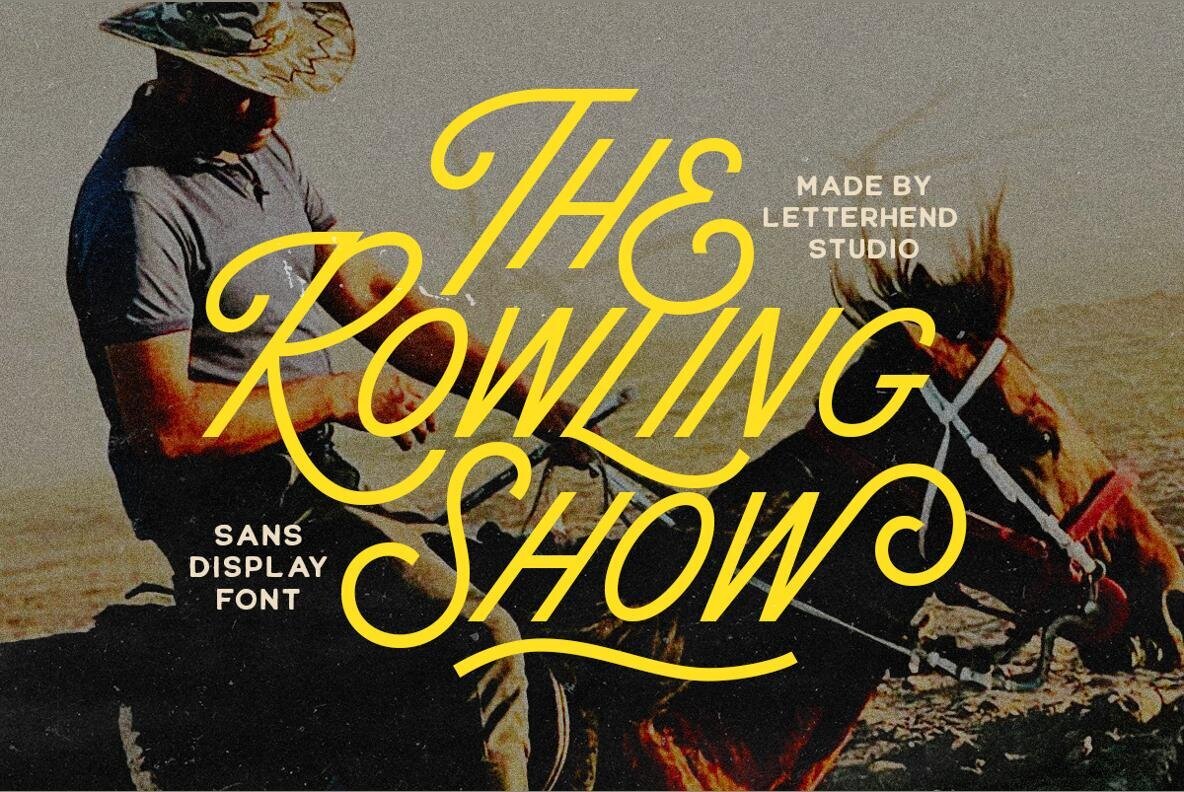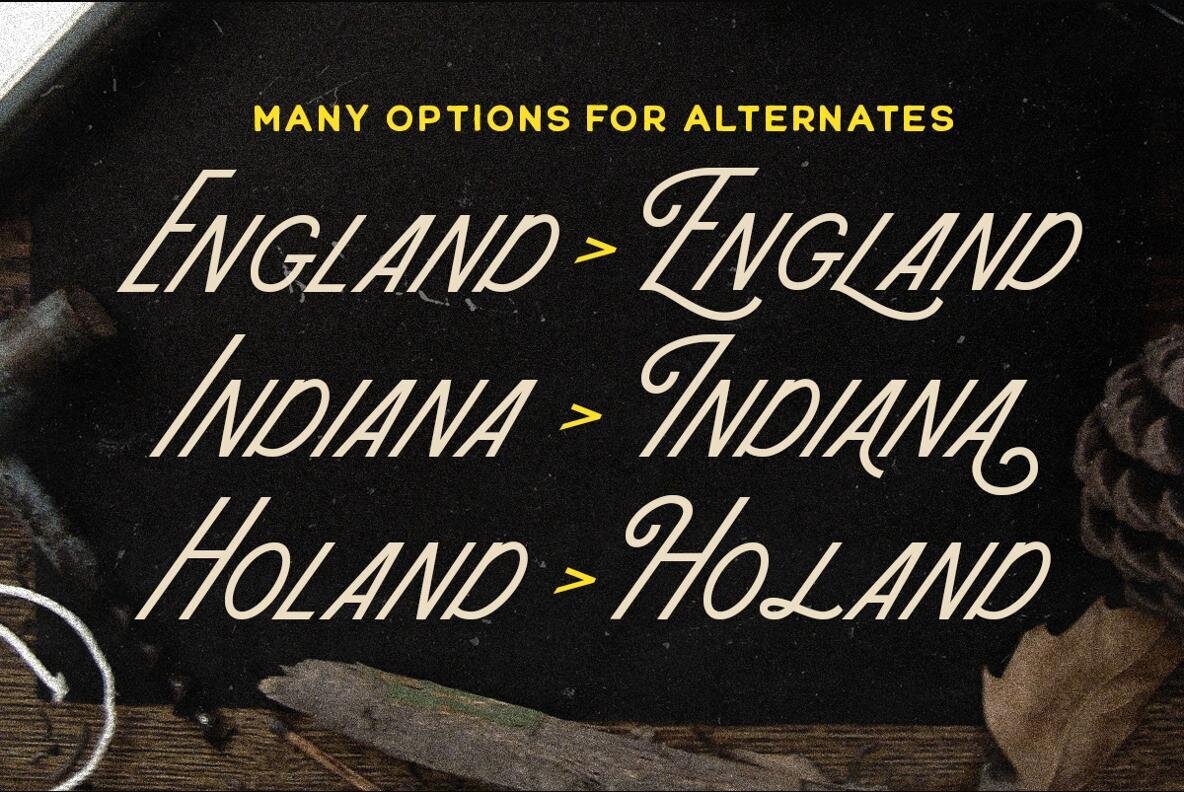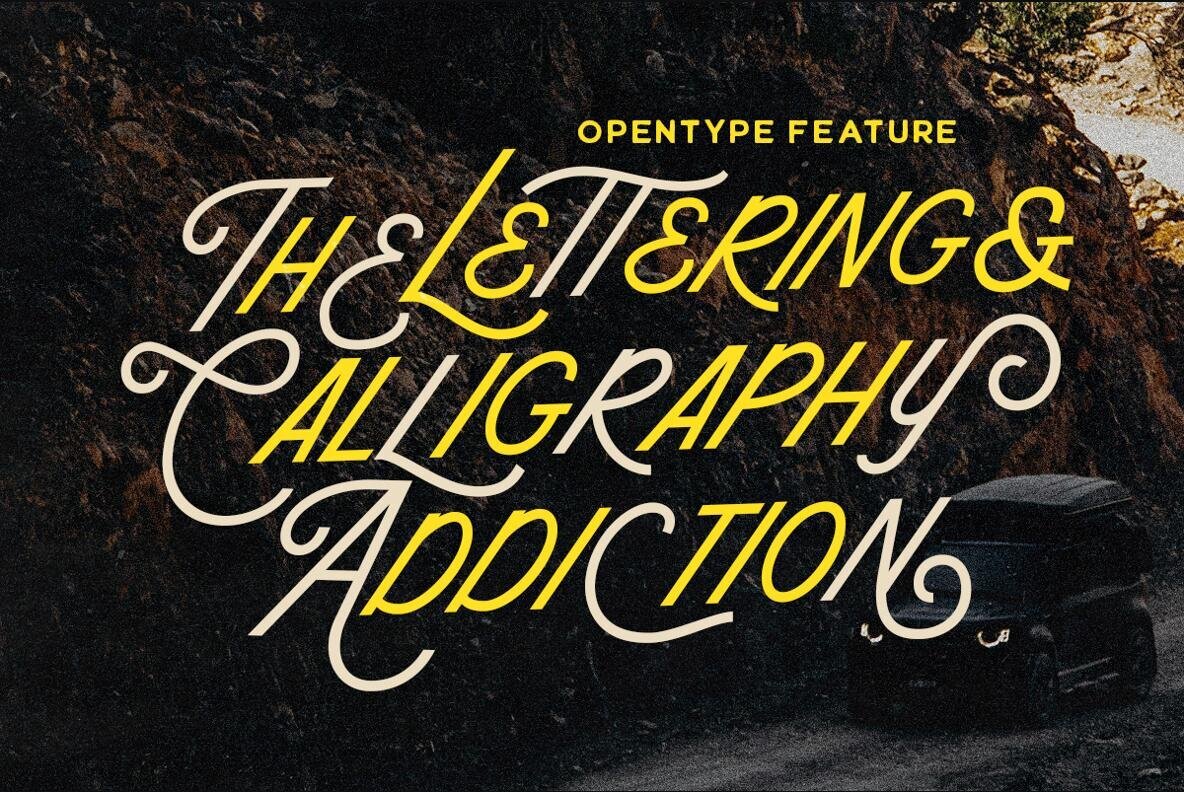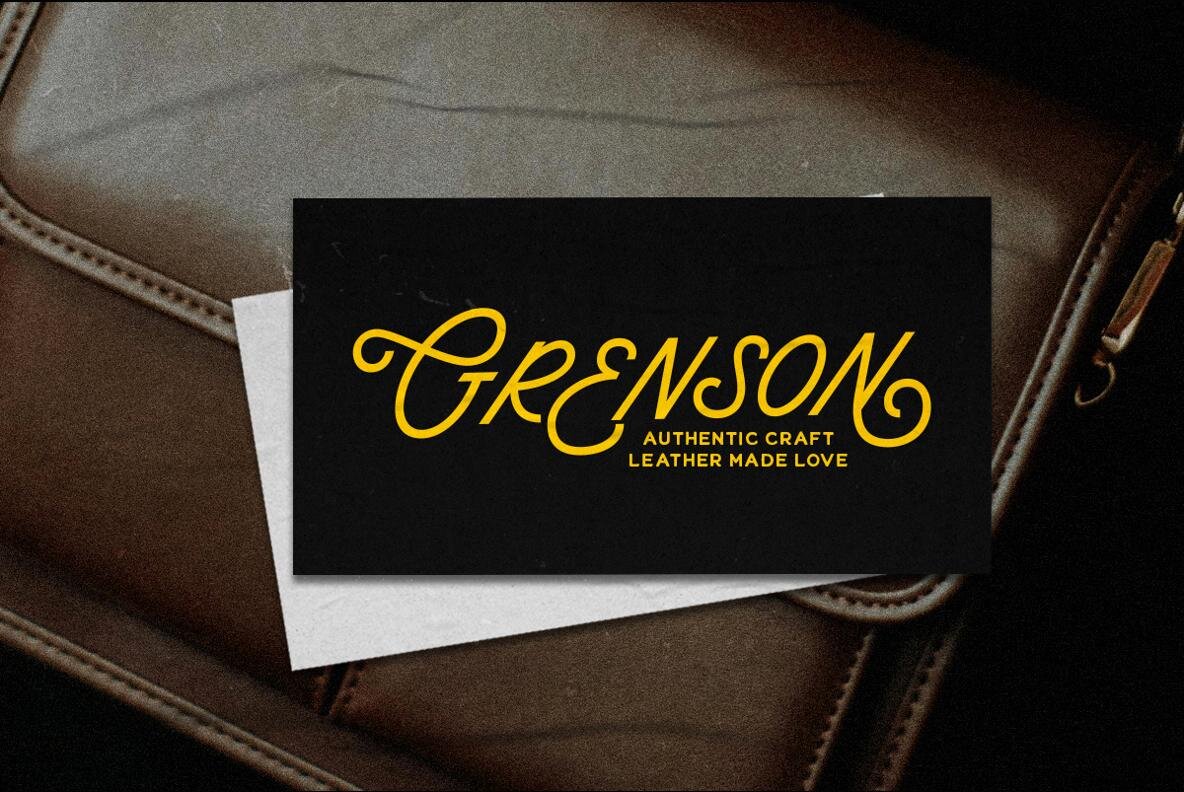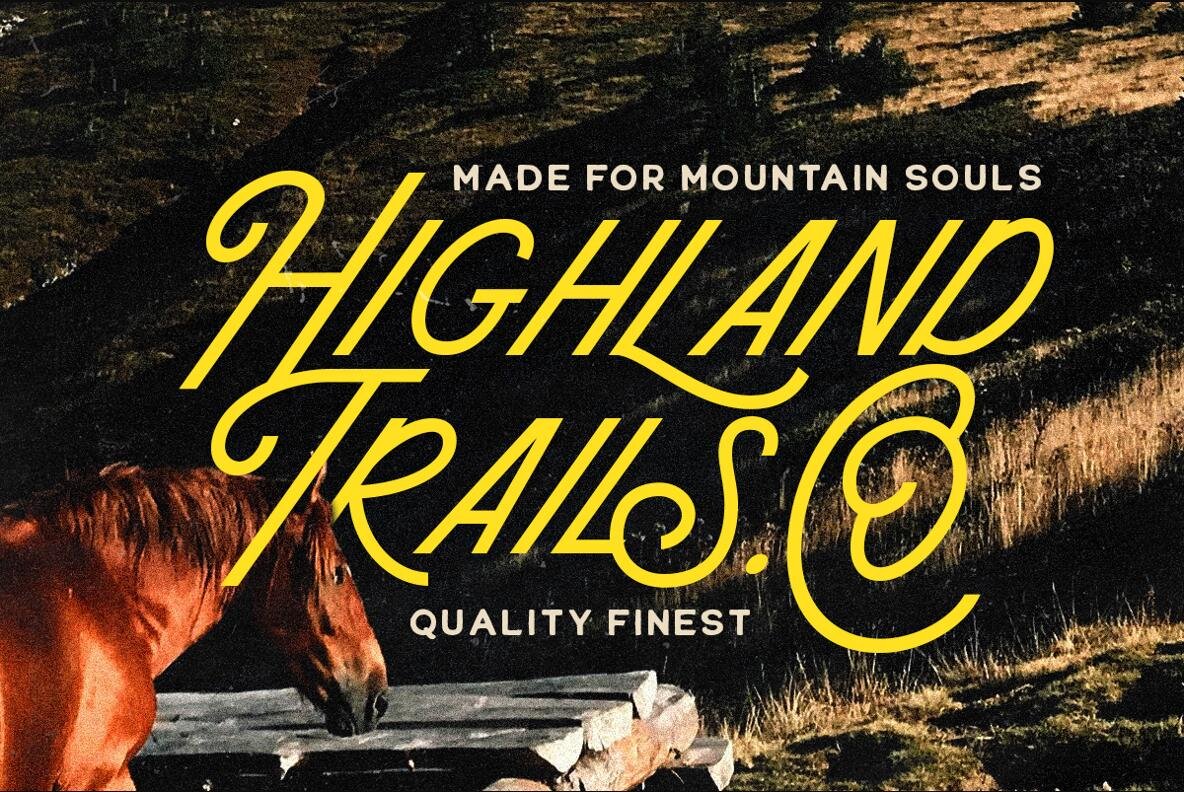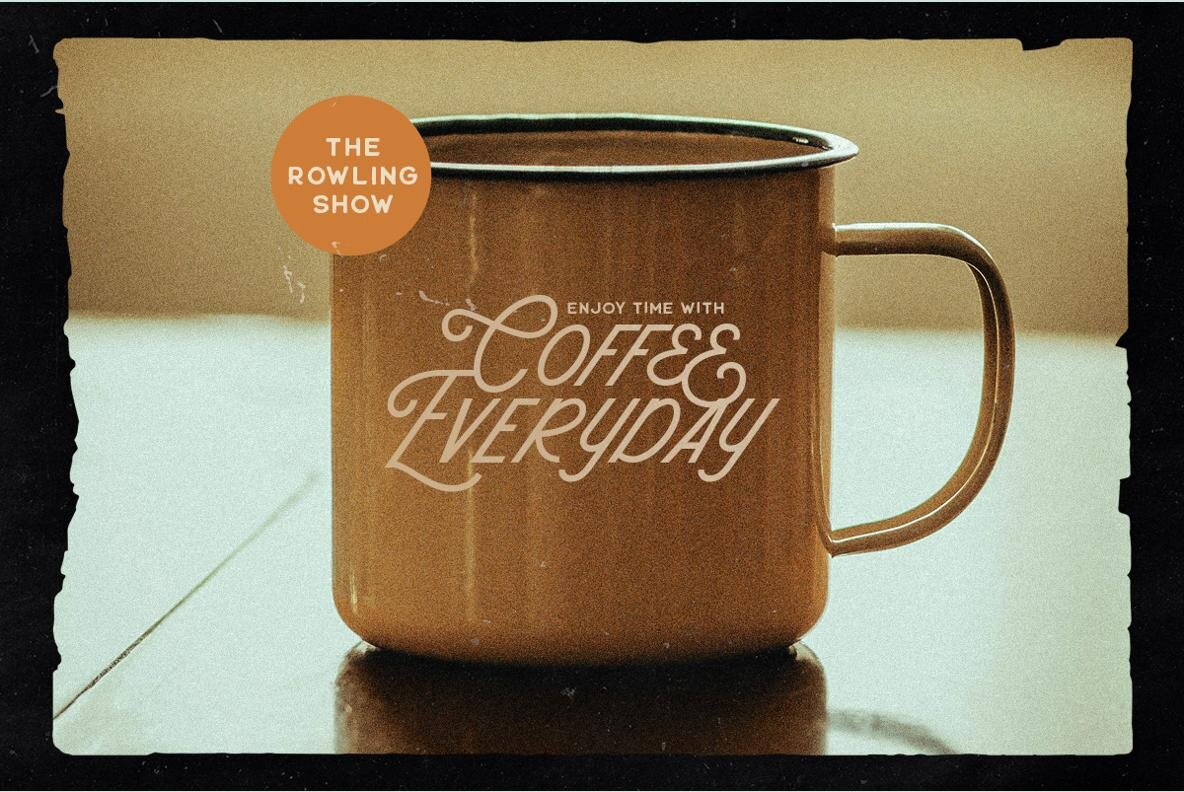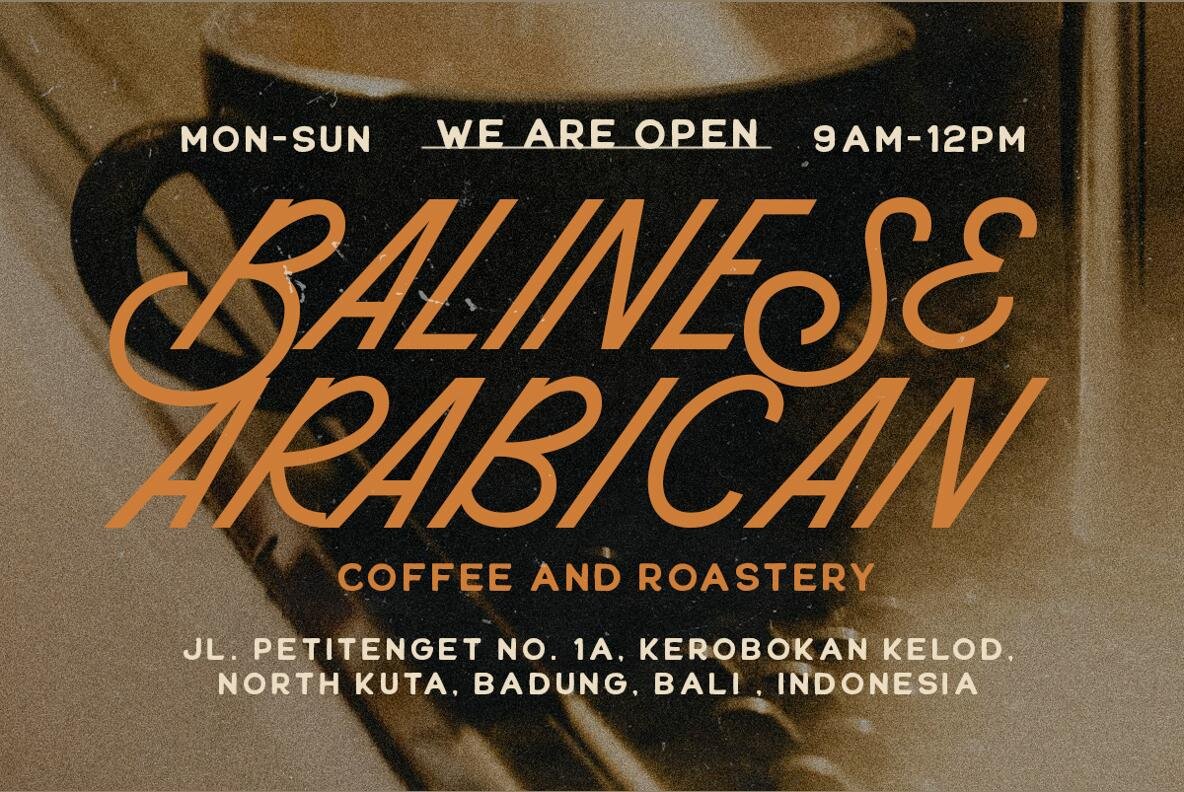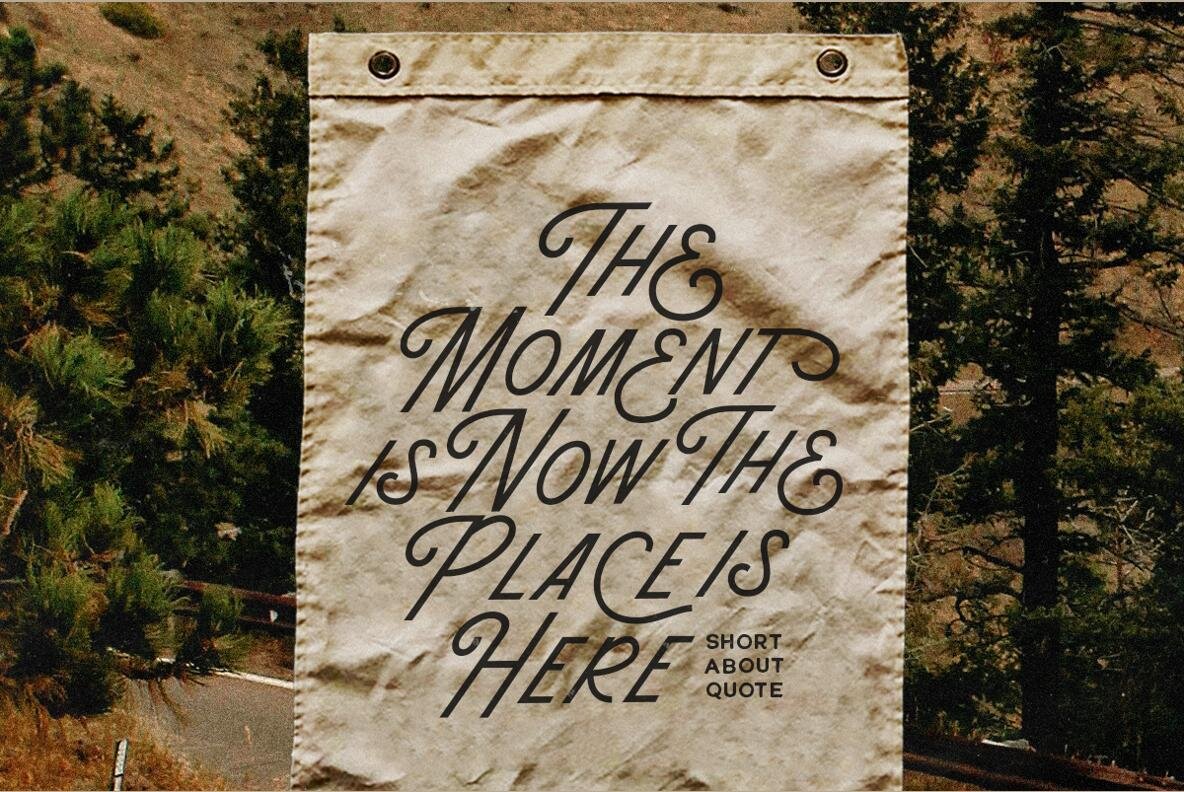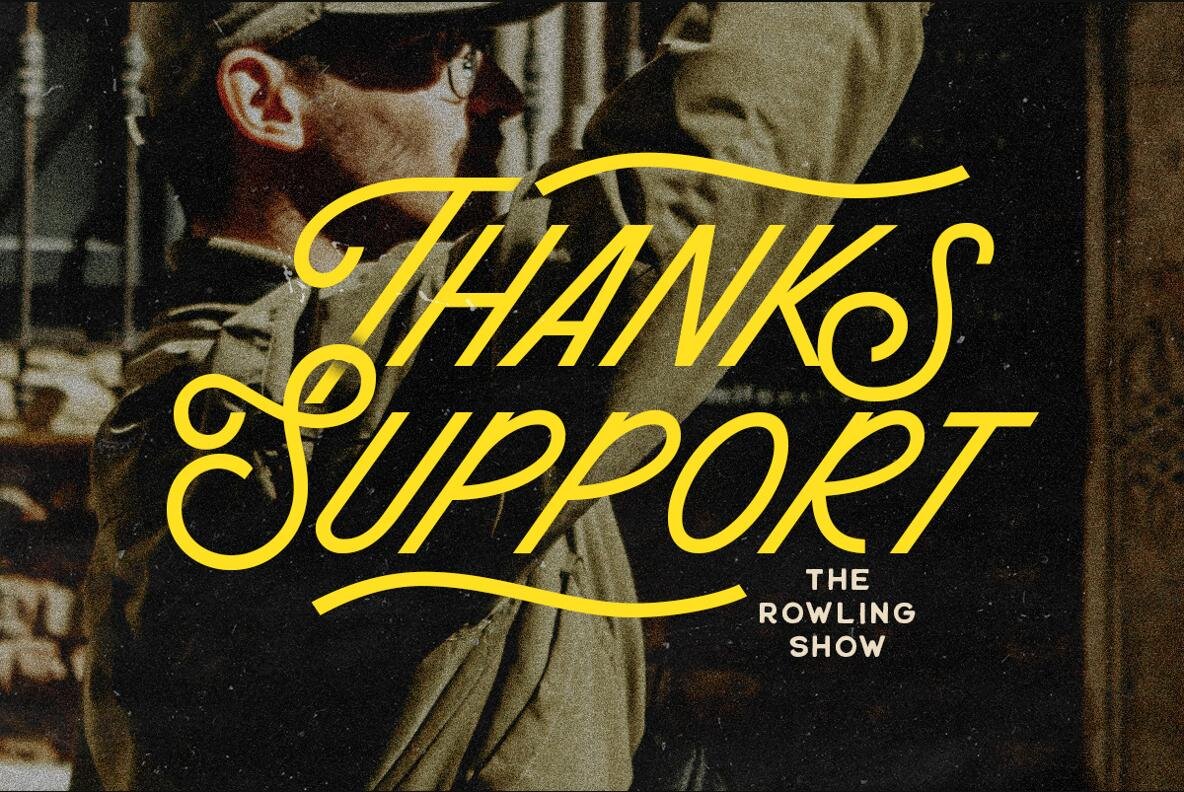
The Rowling Show Font
The Rowling Show Regular
The Rowling Show is a monoline sans display font that brings a retro western charm, seamlessly blending clean letterforms with stylish swashes. This font's sharp lines and elegant curves lend themselves well to posters, logos, event titles, and signage. It is a perfect choice for branding efforts that aim for strength, classic style, and character. With a showtime vibe that is confident and a touch dramatic, The Rowling Show commands attention while maintaining a vintage sophistication.The Rowling Show: Retro Sans Display Font with Swashes